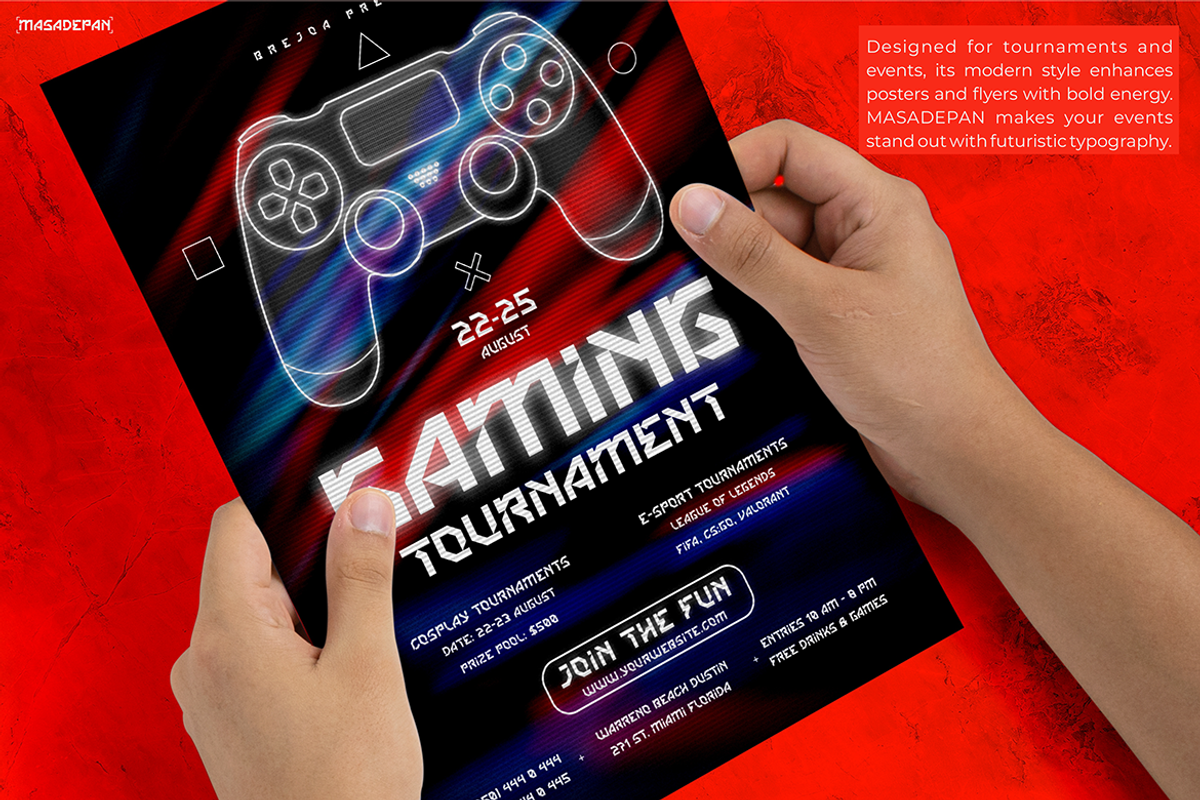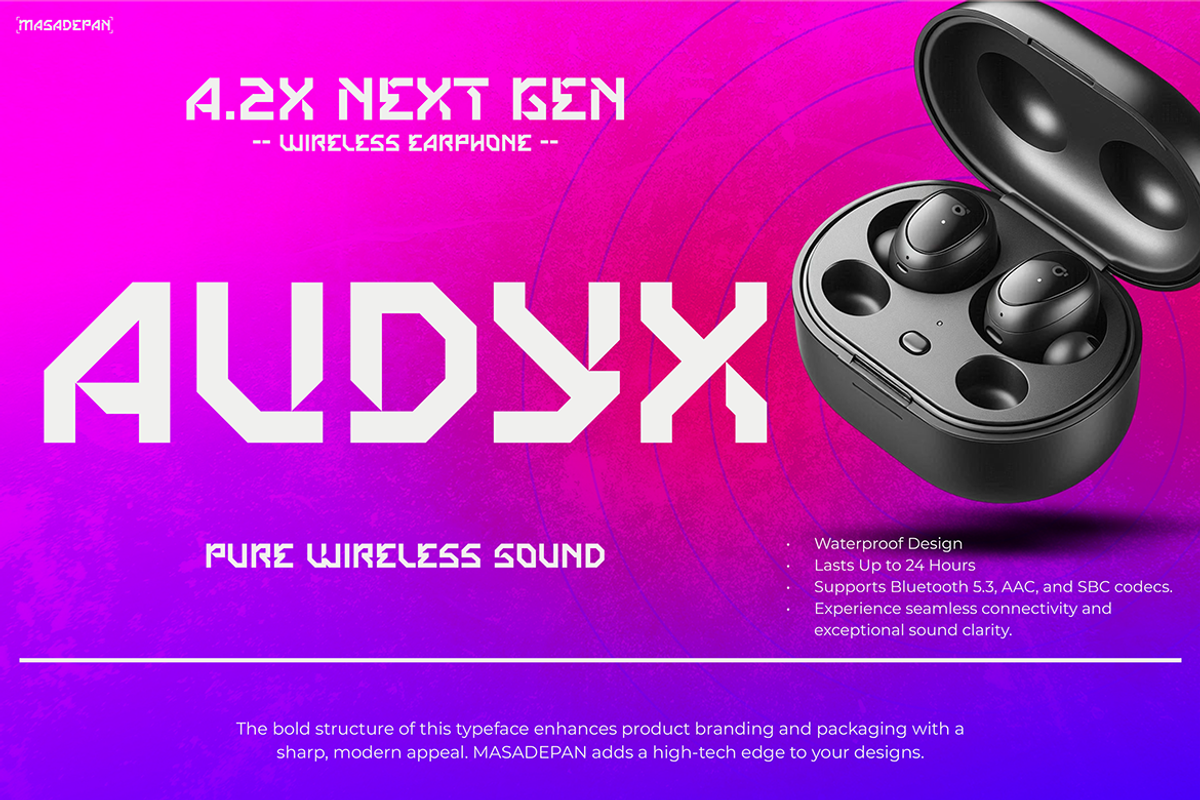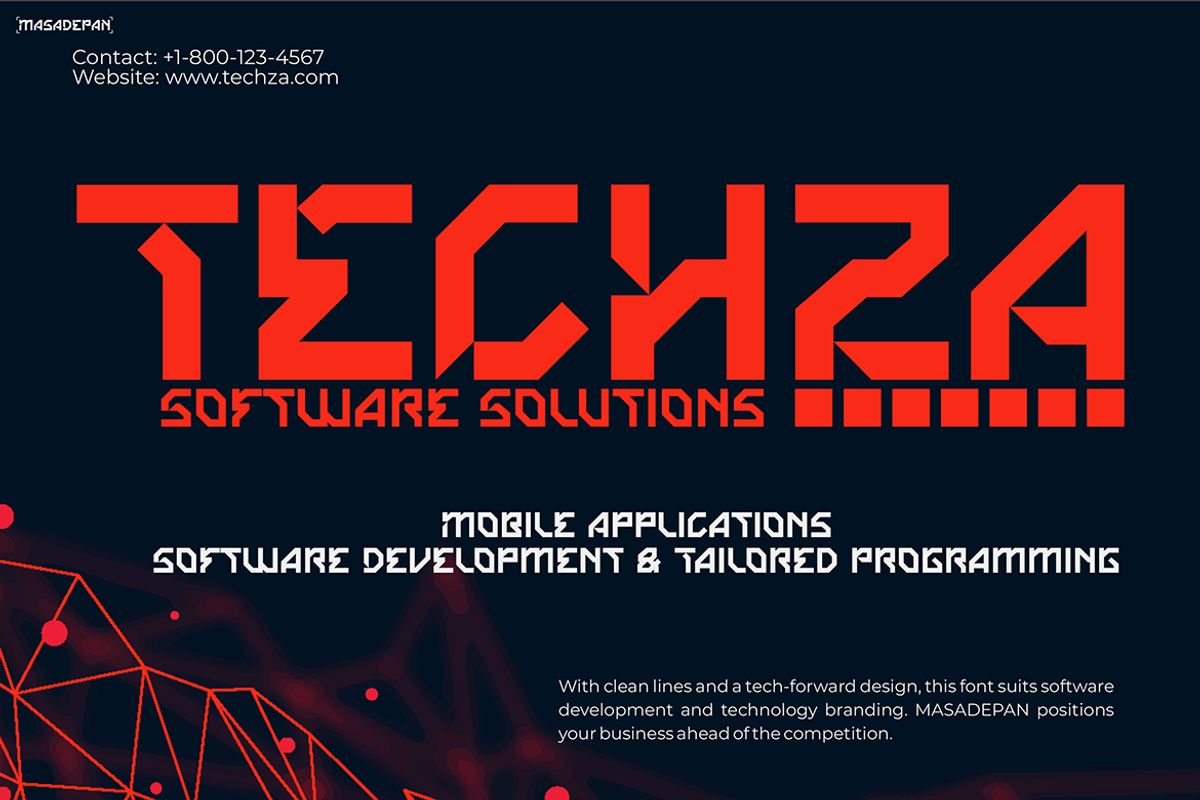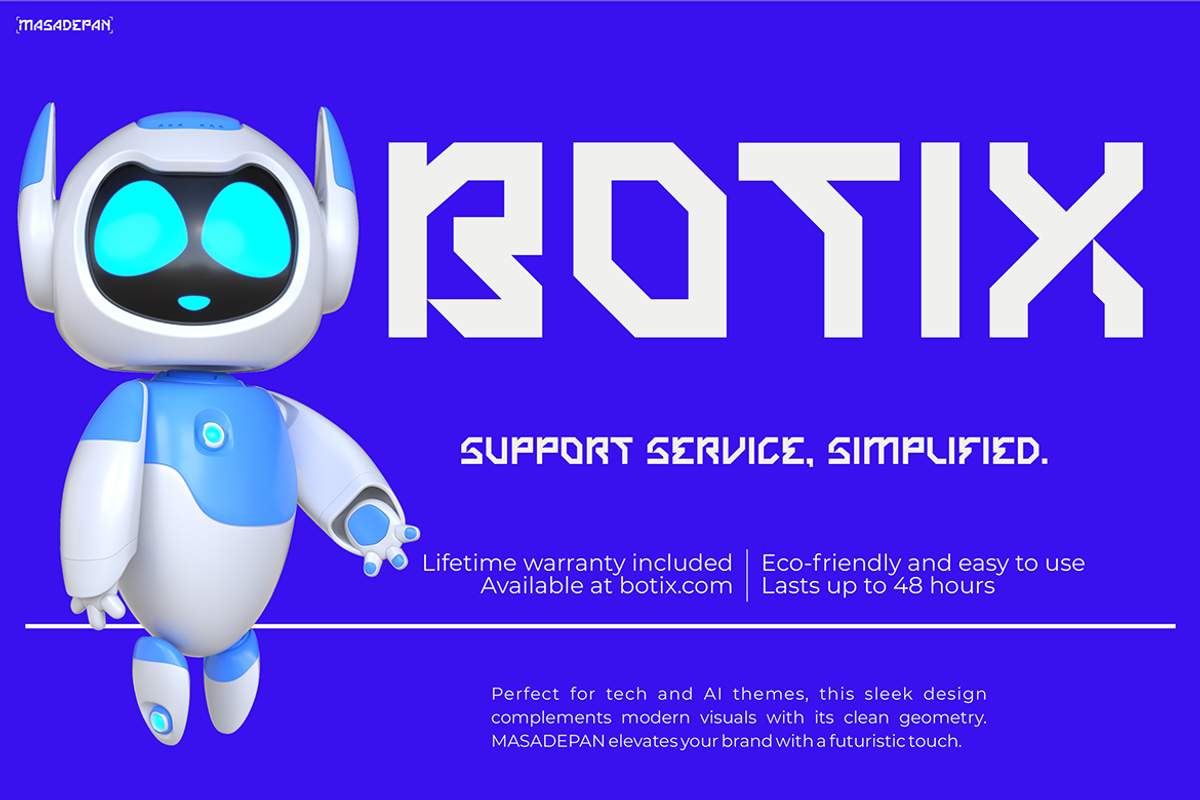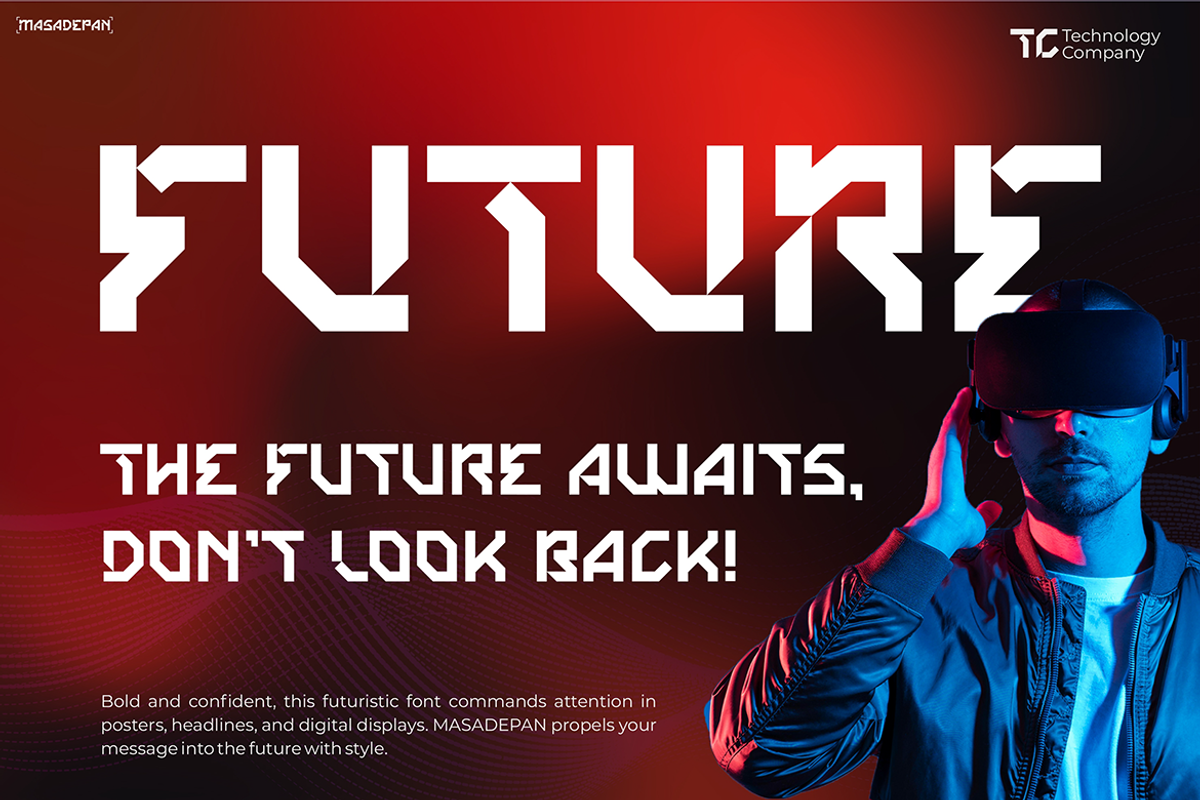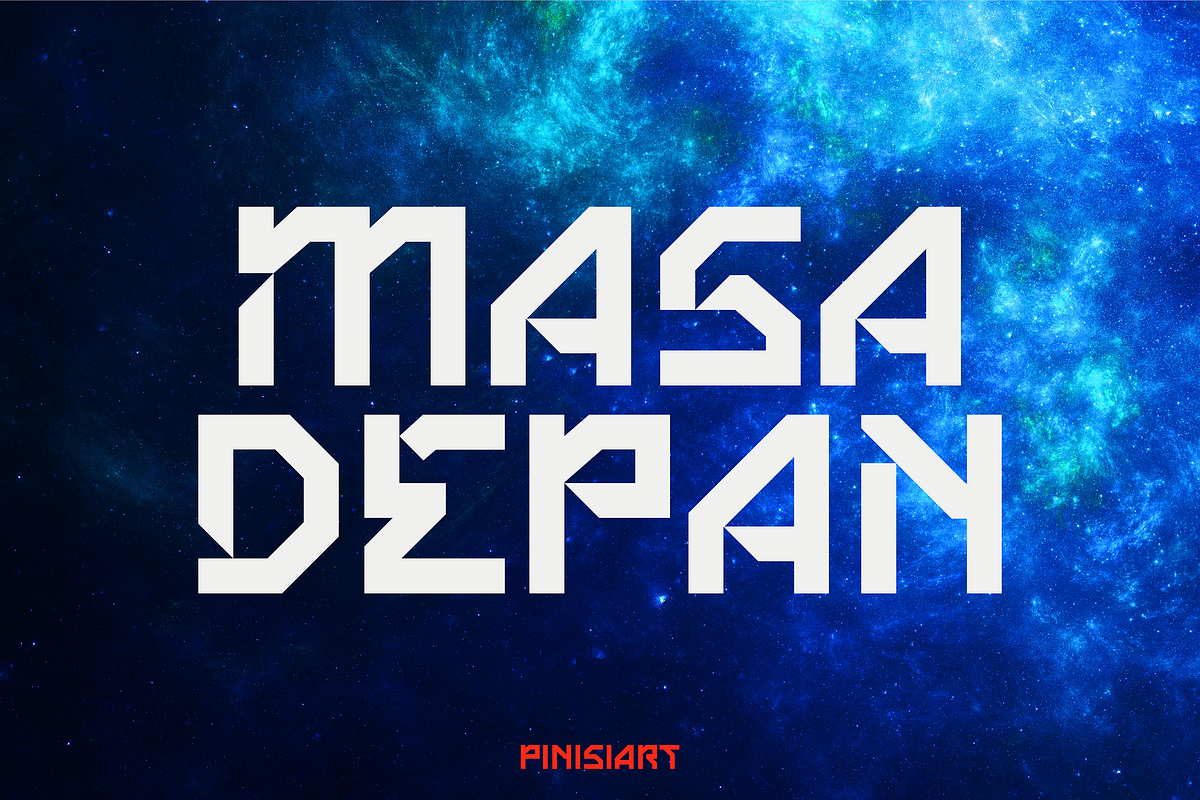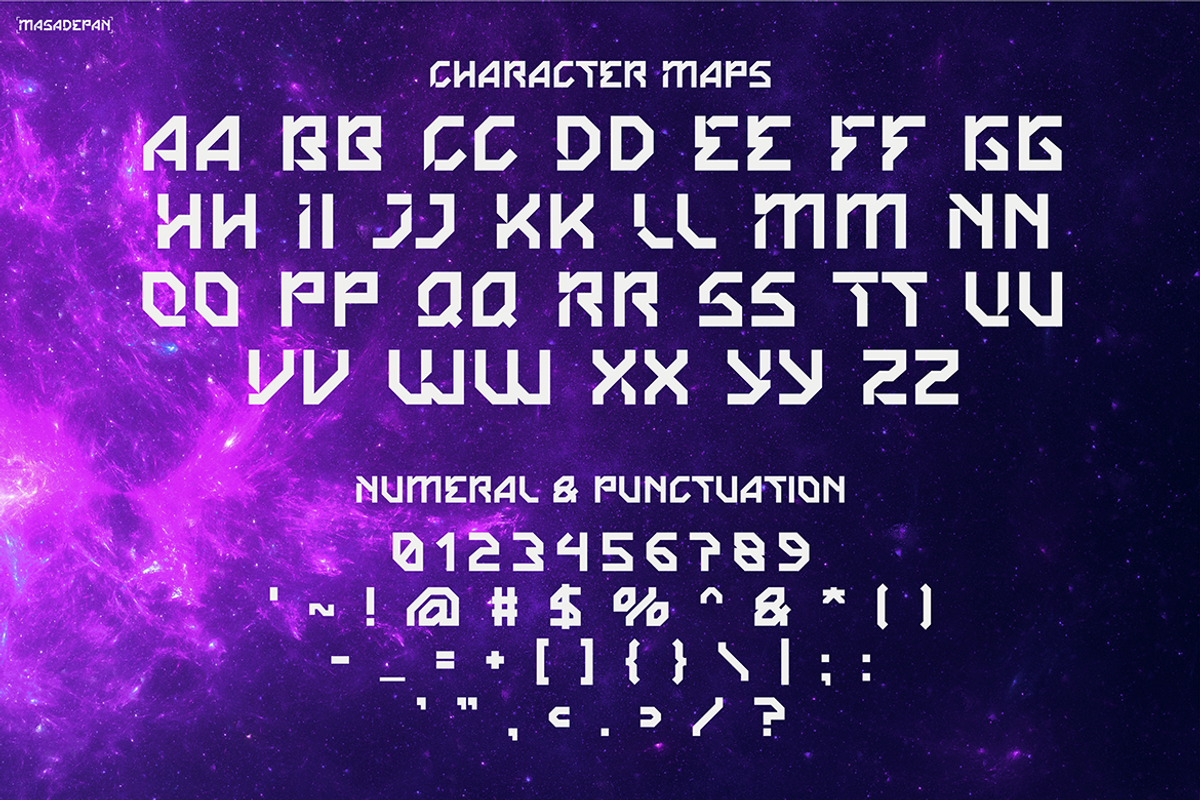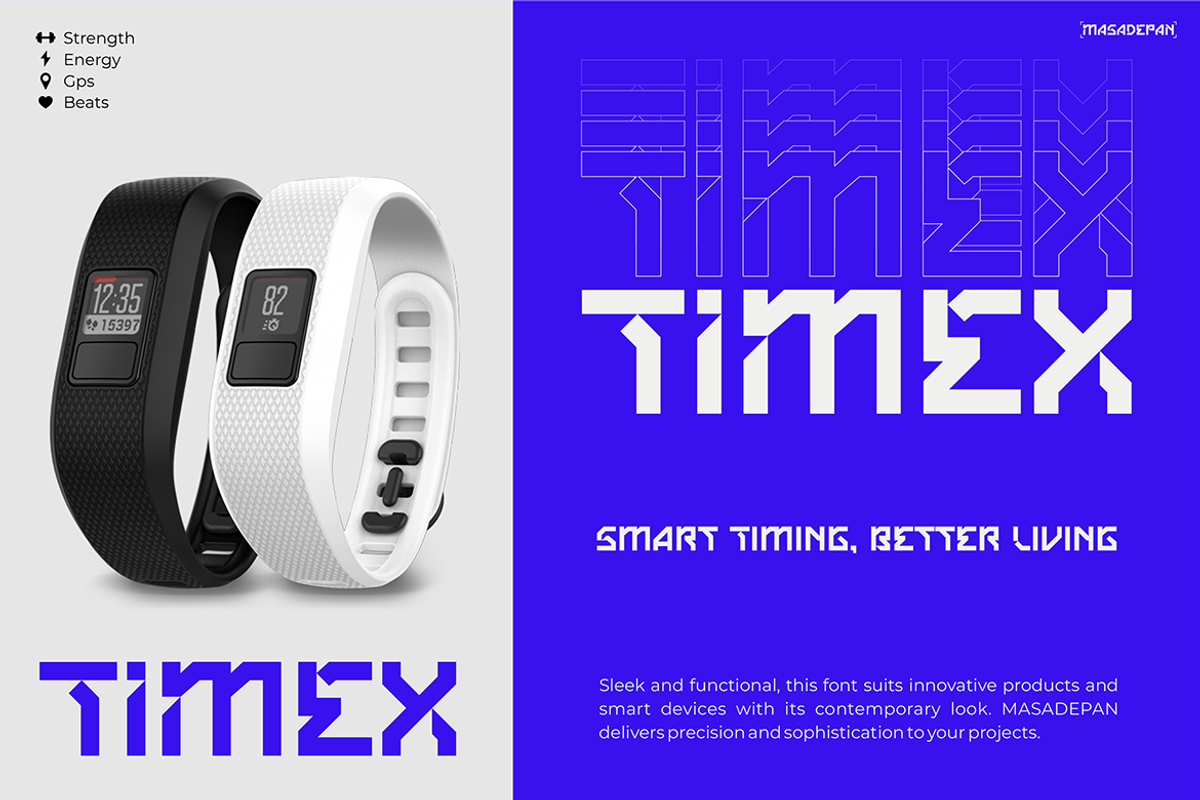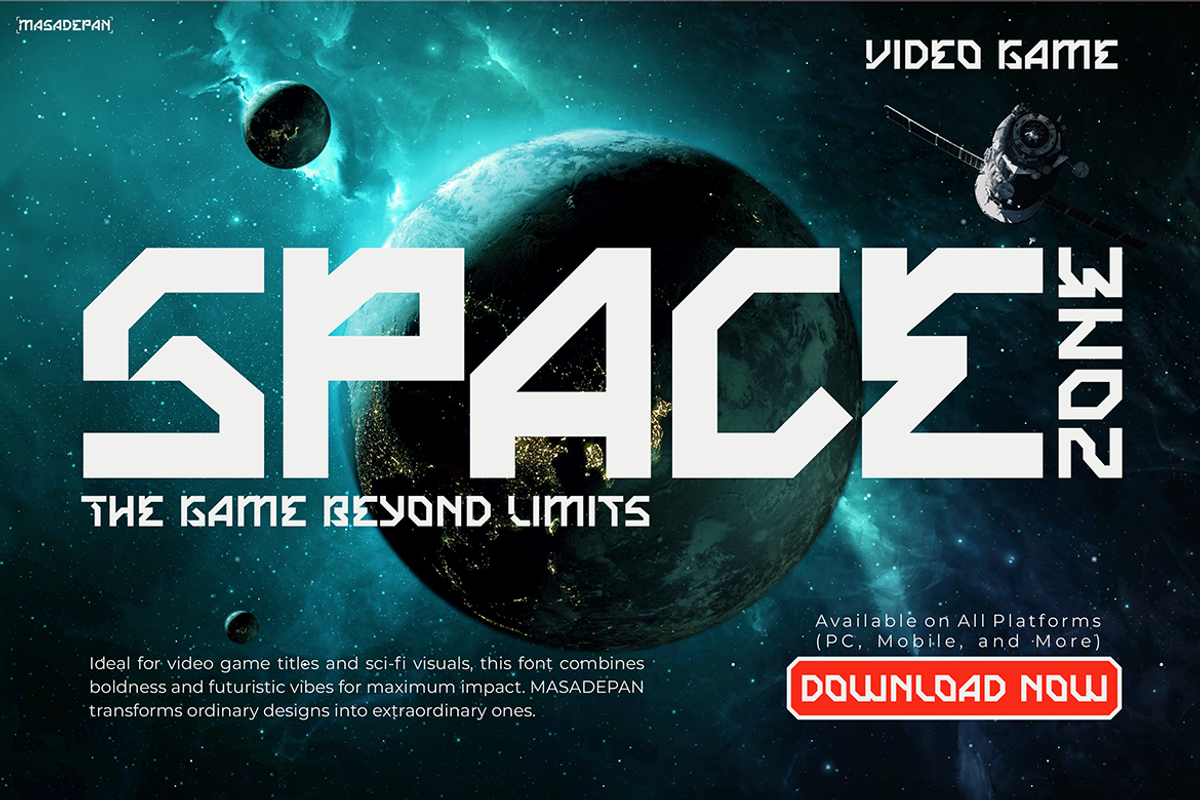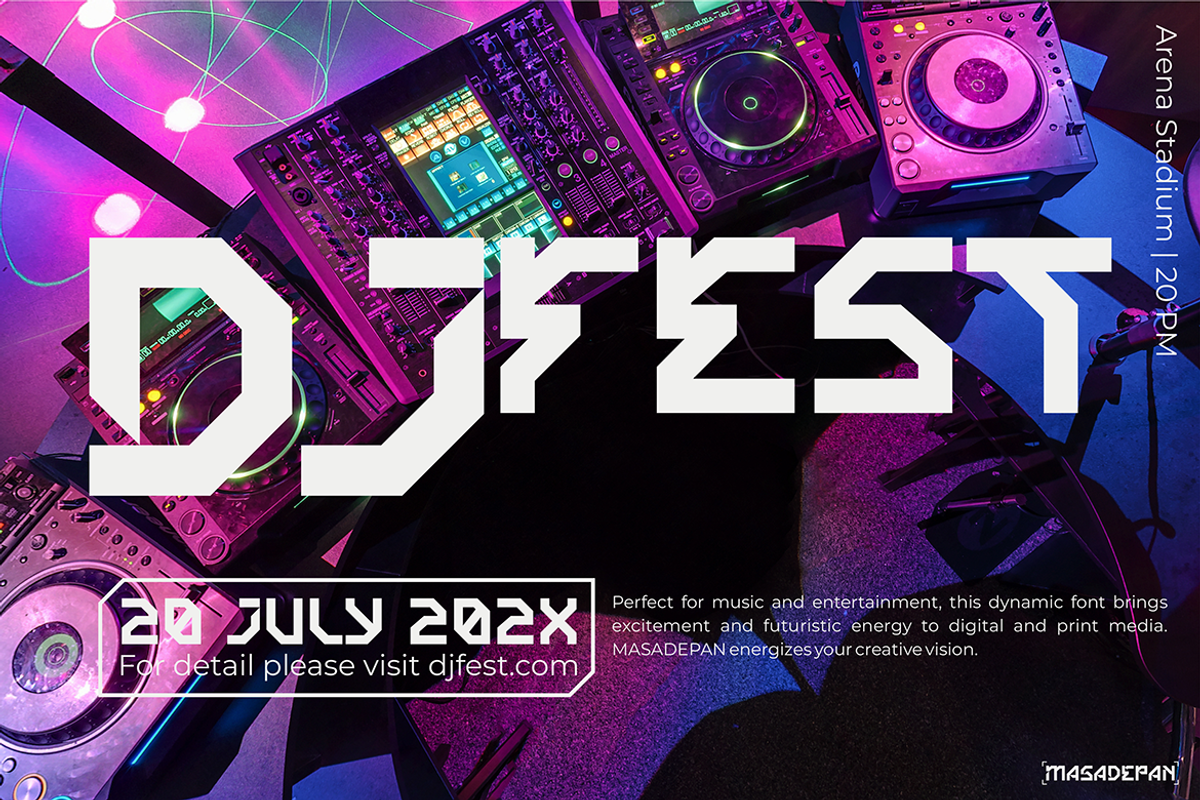
MASADEPAN
Futuristic Font MASADEPAN offers a sleek and modern style that elevates your design projects to new heights. Inspired by cutting-edge technology and futuristic aesthetics, this typeface merges sharp angles, smooth curves, and clean lines for a refined look. As a result, it reflects innovation and creativity, making it the perfect choice for projects that require a bold, forward-thinking approach.
With its minimalist yet dynamic form, MASADEPAN effortlessly stands out in both digital and print media. Moreover, its geometric structure and modern style enhance readability while ensuring visual impact. Whether you are designing for websites, posters, or branding materials, this font adds sophistication and energy to your text.
In addition, MASADEPAN combines elements of sci-fi design, sleek minimalism, and high-tech precision. Consequently, it creates a unique visual language that resonates with innovation and progress. This makes the font ideal for creative professionals aiming to deliver striking and futuristic visuals.